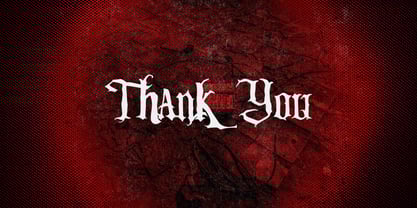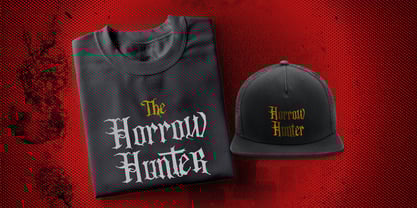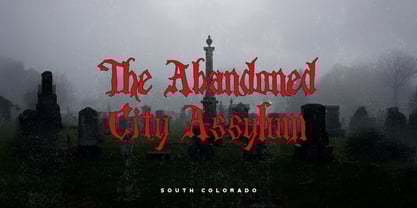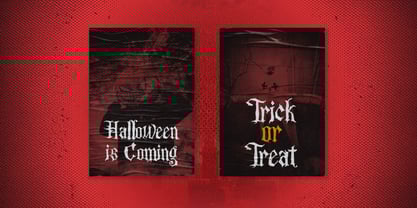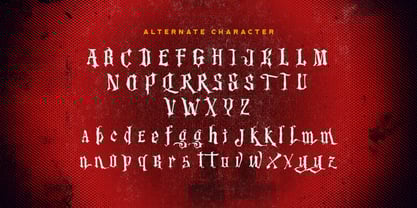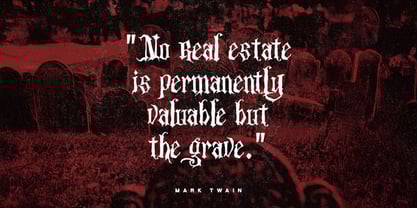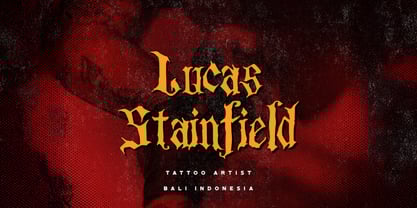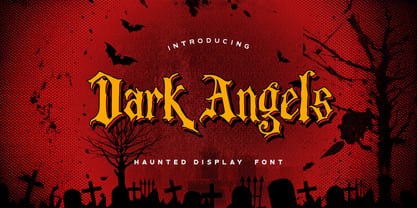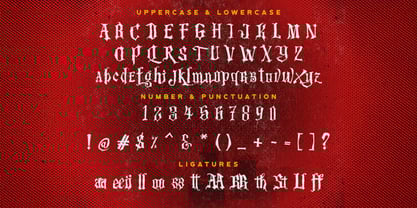
Dark Angels
por Stringlabs Creative Studio
A família de fontes Dark Angels foi desenhada por Virgiawan Listanto e publicada pela Stringlabs Creative Studio. Dark Angels contém 1 estilos.
Dark Angels is a chilling, gothic-inspired display font designed to evoke an eerie, haunting atmosphere. Its bold and dramatic design makes it stand out in headlines, posters, or any display text that needs to make a sinister impact.
Designers: Virgiawan Listanto